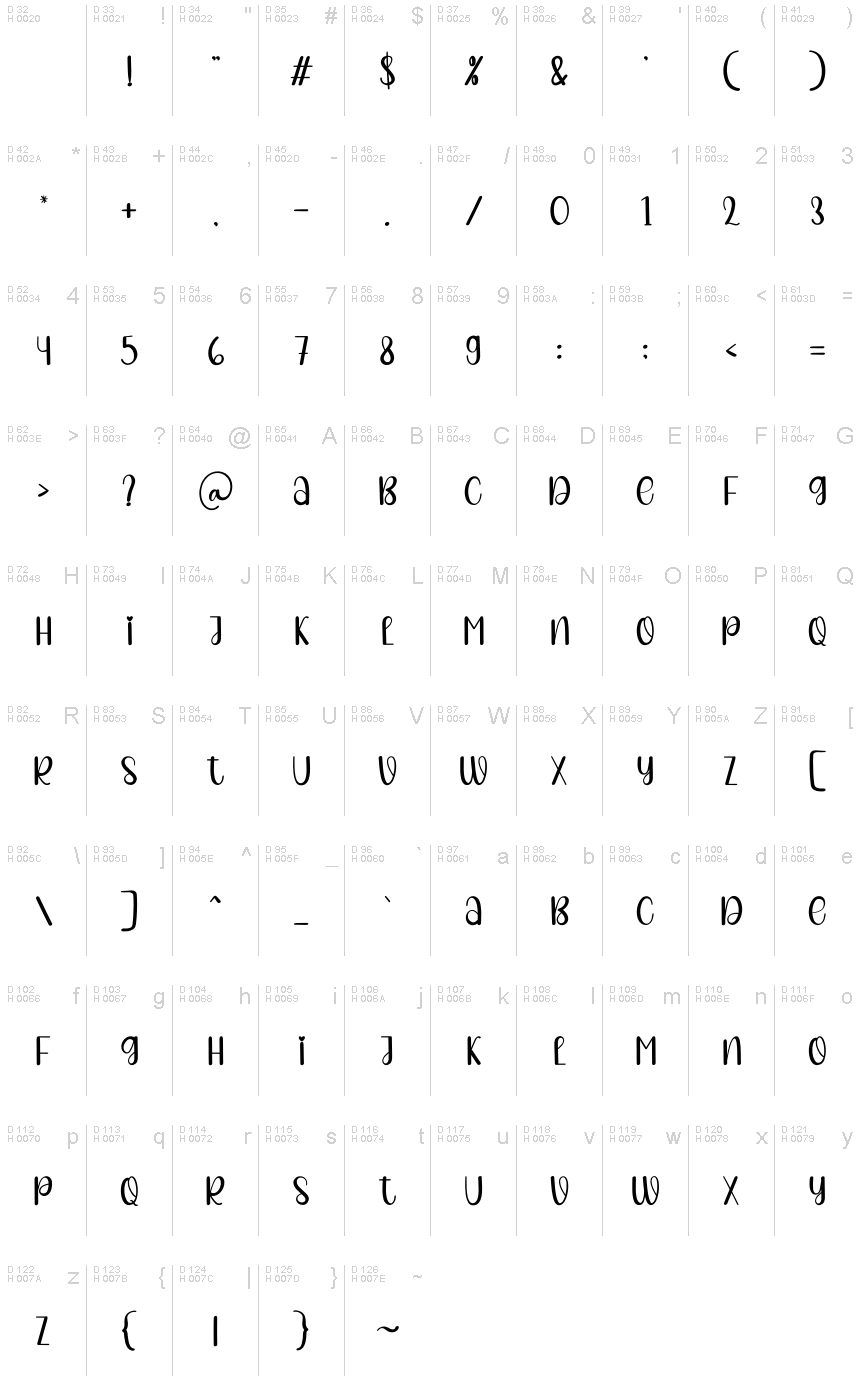
Snacks For Children
Snacks for Children by Scratchones exudes playfulness and charm, capturing the whimsy of a handwritten note. Its condensed style lends to a cozy, intimate feel, reminiscent of quick scribbles in a personal diary or the energetic doodles that dance across a child's notebook. The font's casual flair is both inviting and endearing, making it an ideal choice for projects that require a touch of innocence and imagination.
Its versatility shines in contexts that call for an informal yet captivating touch: think children's book covers, playful branding materials, or creative educational resources. Snacks for Children promises to sprinkle a dash of fun into every design it graces, inviting smiles and sparking delight in audiences both young and young at heart.